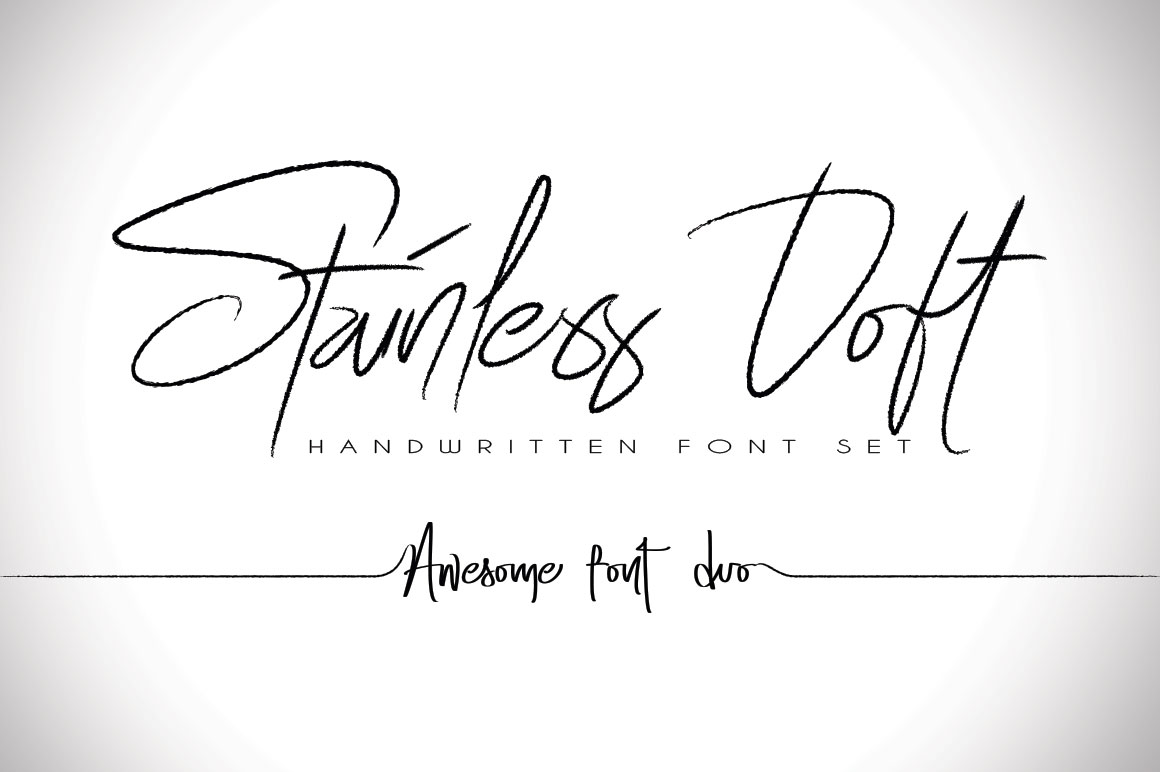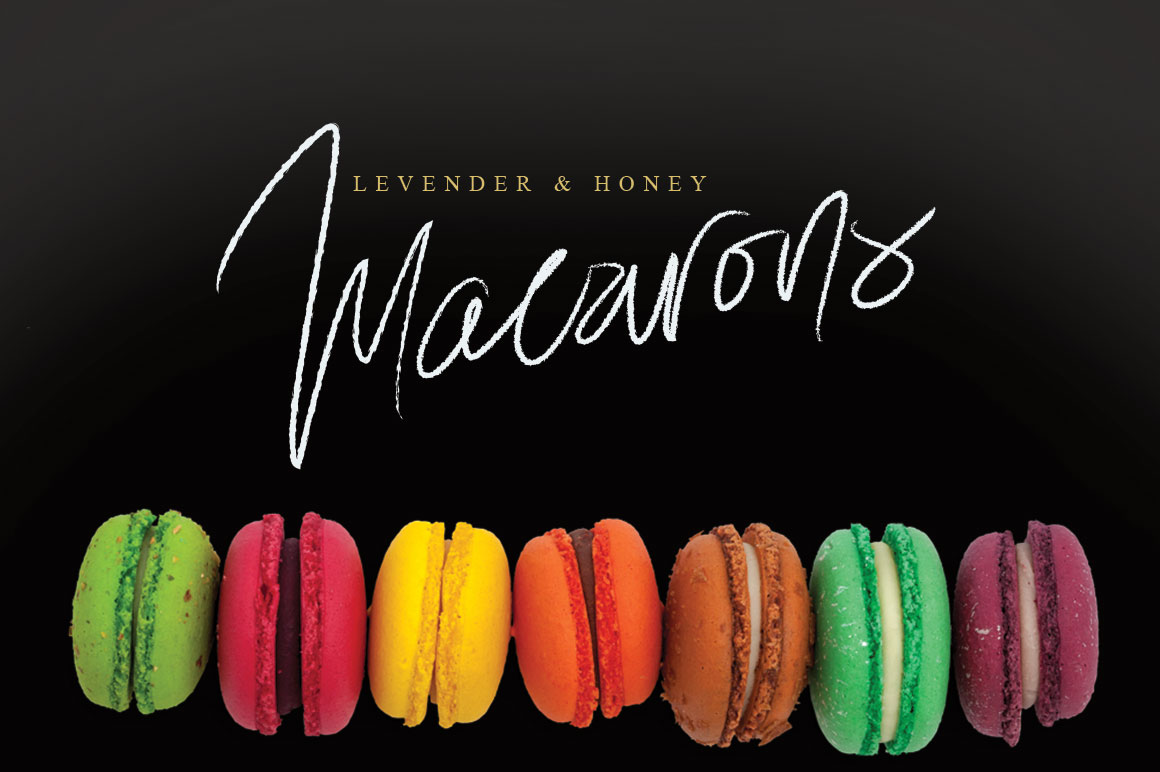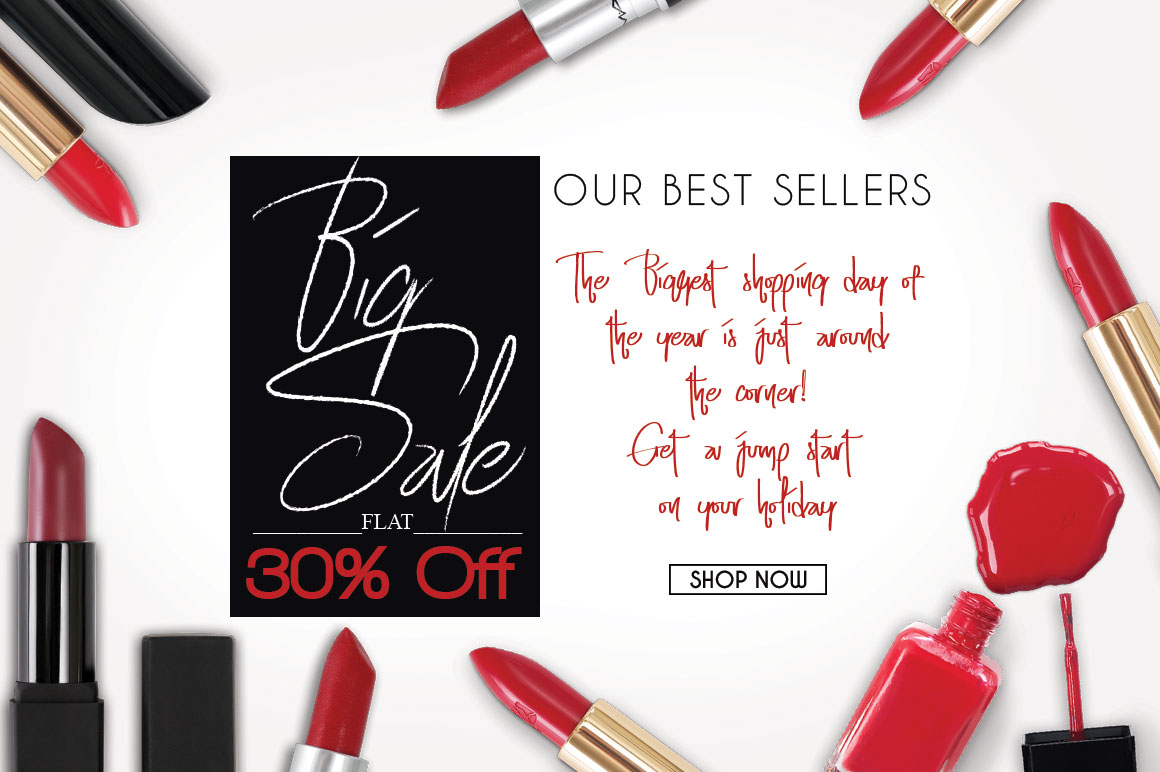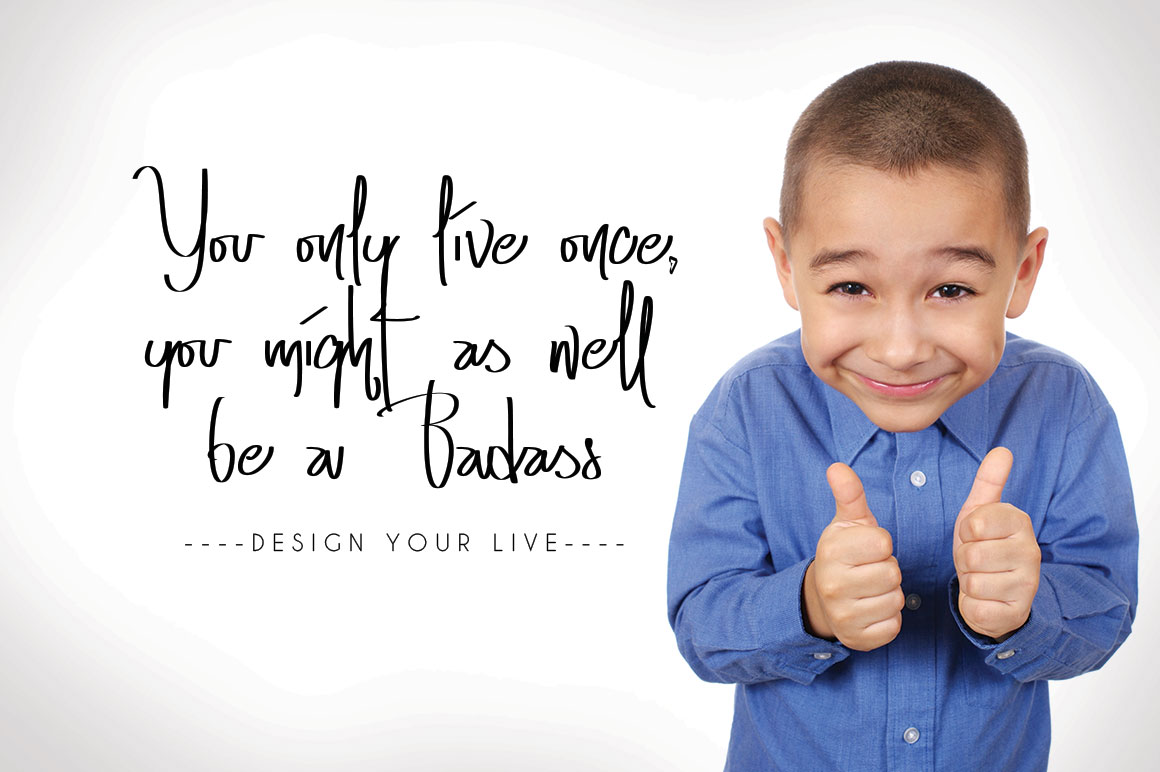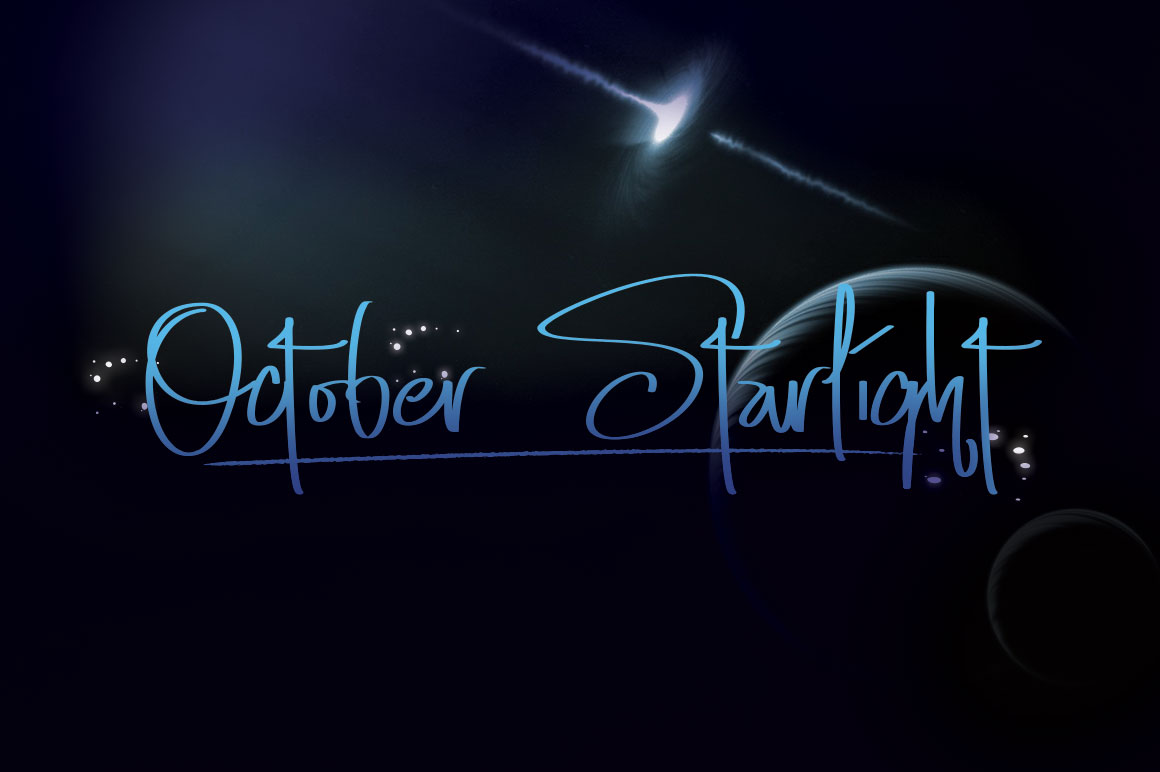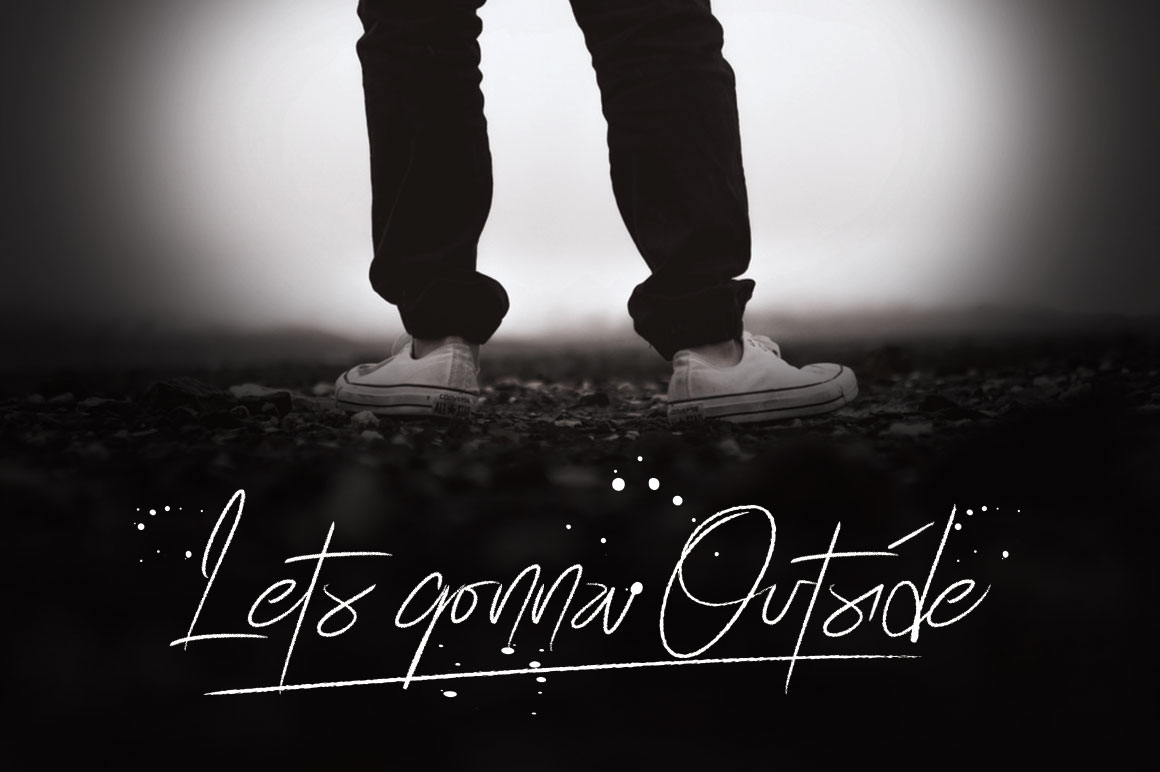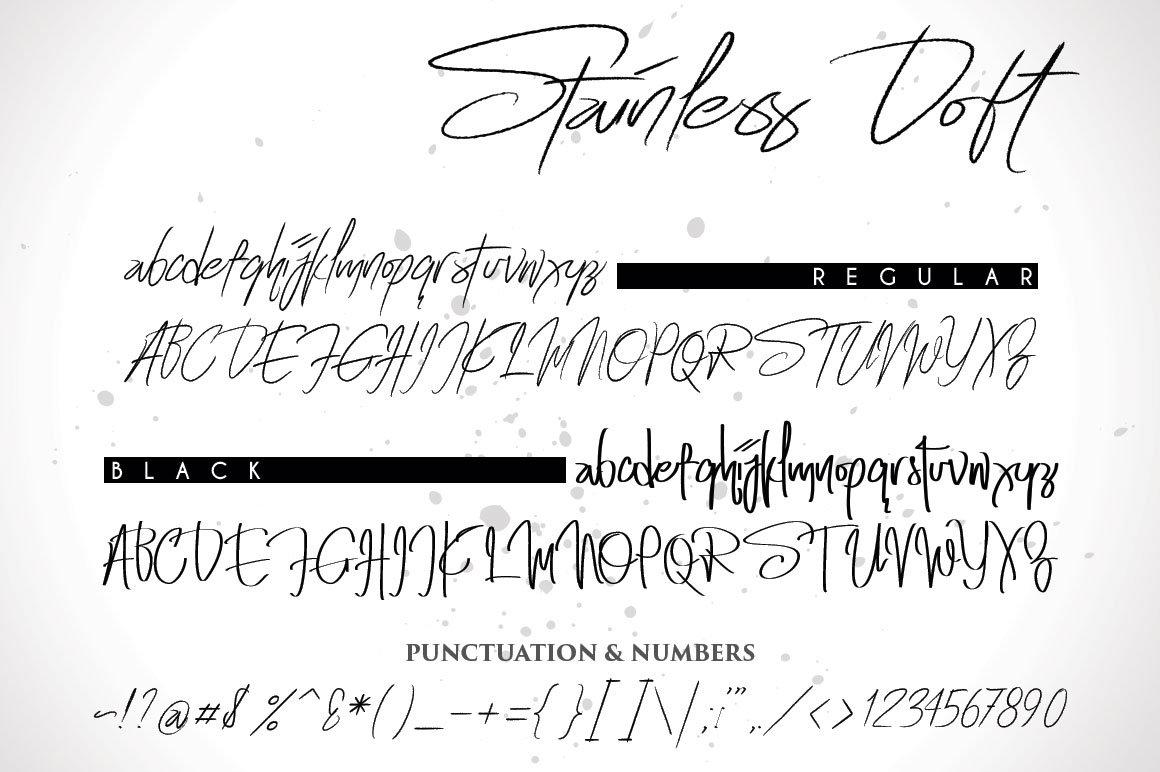
HomeScript FontsStainless Doft Font Script Fonts Stainless Doft Font FacebookXPinterestWhatsApp Stainless Doft Font Poster 2 Stainless Doft Font Poster 3 Stainless Doft Font Poster 4 Stainless Doft Font Poster 5 Stainless Doft Font Poster 6 Stainless Doft Font Poster 7 About Stainless Doft Font Stainless Doft is a clean, classy signature style font duo that comes with loads of handcrafted glyphs. DOWNLOAD ON CREATIVE FABRICAThis font is sold and delivered by Creative Fabrica. Font Canyon may earn a commission if you buy through this link. People also explored Milang Kalla Font Inversus Silhouette Script Hello Family Font Mulgrave Borekis Font Good Butter Font Dix-neuf Font Beignetshi Font 325 0 TagsStainless Doft Font Previous articleAlva Romeo FontNext articleHoldenisty Font LEAVE A REPLY Cancel reply Comment: Please enter your comment! Name:* Please enter your name here Email:* You have entered an incorrect email address! Please enter your email address here Website: Save my name, email, and website in this browser for the next time I comment. Personal Use Free Charletto Personal Use Free Read more about this font December Christmas Personal Use Free Read more about this font Bridgetown Font Personal Use Free Read more about this font Lost Treasure Personal Use Free Read more about this font BLOG Where to Buy American Fonts Online in 2024 Where to Buy American Fonts Online: The Ultimate Guide for 2024 Looking for the perfect American font to elevate your design projects? You're in the... Top 10 Handwritten Fonts That Elevate Your Designs Free Fonts Risk: Why Free Fonts Can Be Dangerous for Designers Top 7 Google Fonts Alternatives for Faster and Privacy-Friendly Web Design (2025)